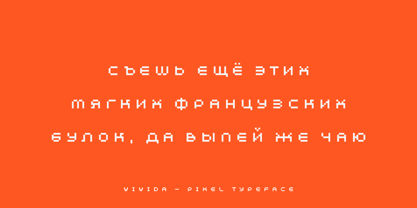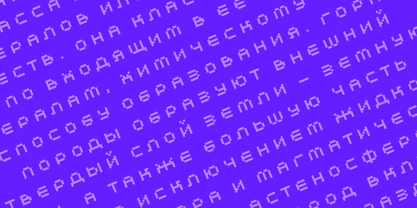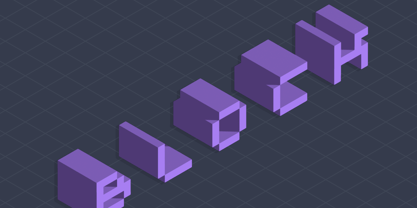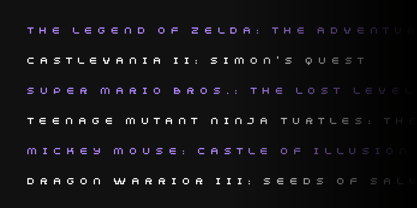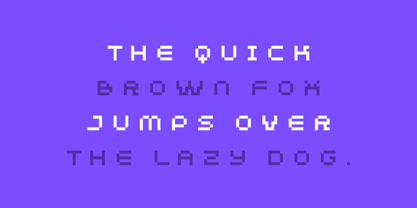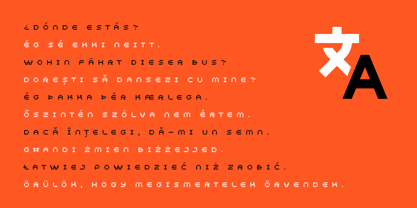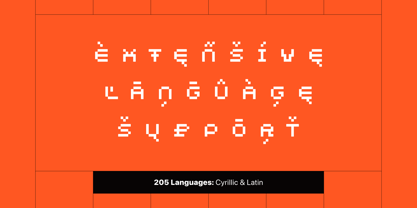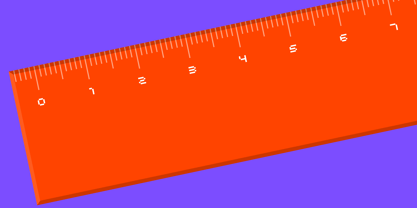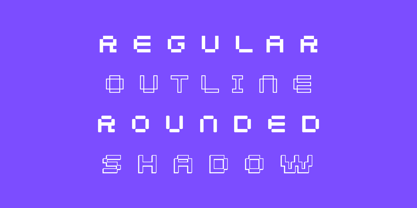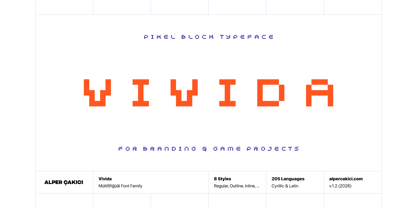
Vivida
by AlperCakici
The Vivida Font Family was designed by Alper Çakıcı and published by AlperCakici. Vivida contains 8 styles and family package options. More about this family
Vivida is a bold and expressive pixel typeface family built on a precise 100px grid system, combining retro bitmap aesthetics with modern multilingual functionality. Designed by Alper Çakıcı, Vivida delivers a clean yet playful digital appearance inspired by classic arcade graphics, early computer interfaces, and contemporary pixel art culture.
The family includes eight versatile styles: Inline, Inline Rounded, Outline, Outline Rounded, Regular, Rounded, Shadow, and Shadow Rounded. Each style is carefully crafted to maintain crisp readability while offering strong stylistic personality for branding, gaming, posters, packaging, logos, apparel, social media graphics, and digital interfaces.
With 530 glyphs and support for 205 Latin and Cyrillic-based languages, Vivida is engineered for extensive international usability. The geometric pixel construction creates a nostalgic low-resolution feel while remaining polished and highly functional in modern design environments.
Vivida works especially well in retro-futuristic branding, gaming visuals, Y2K-inspired projects, tech aesthetics, digital art, streaming graphics, merchandise, and experimental typography. Rounded variants soften the pixel structure for friendlier applications, while outline and shadow styles add depth and dimensional flexibility.
Whether used for headlines, logos, motion graphics, or bold visual identities, Vivida brings together classic bitmap charm and contemporary multilingual precision in a highly versatile pixel font family.